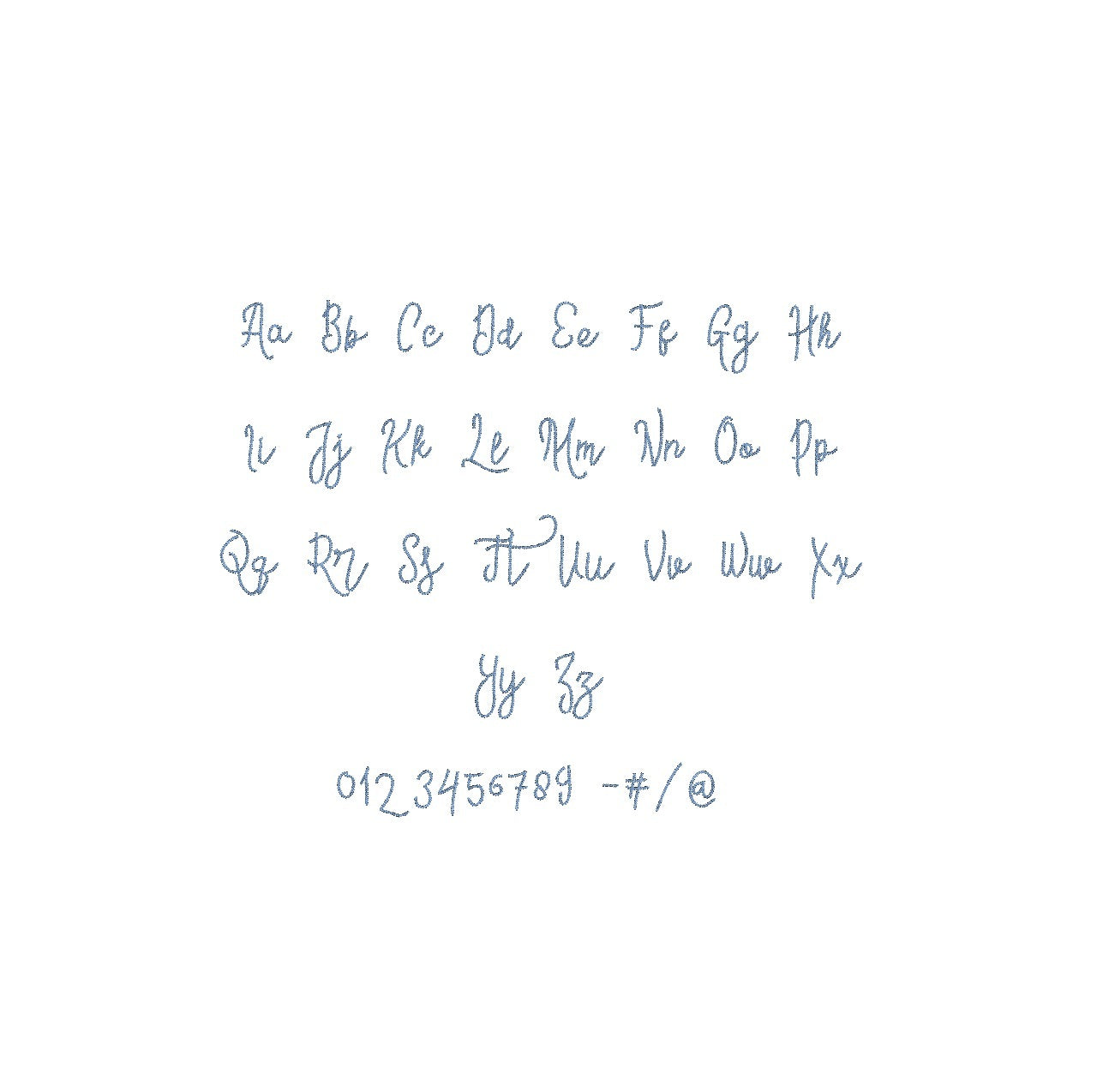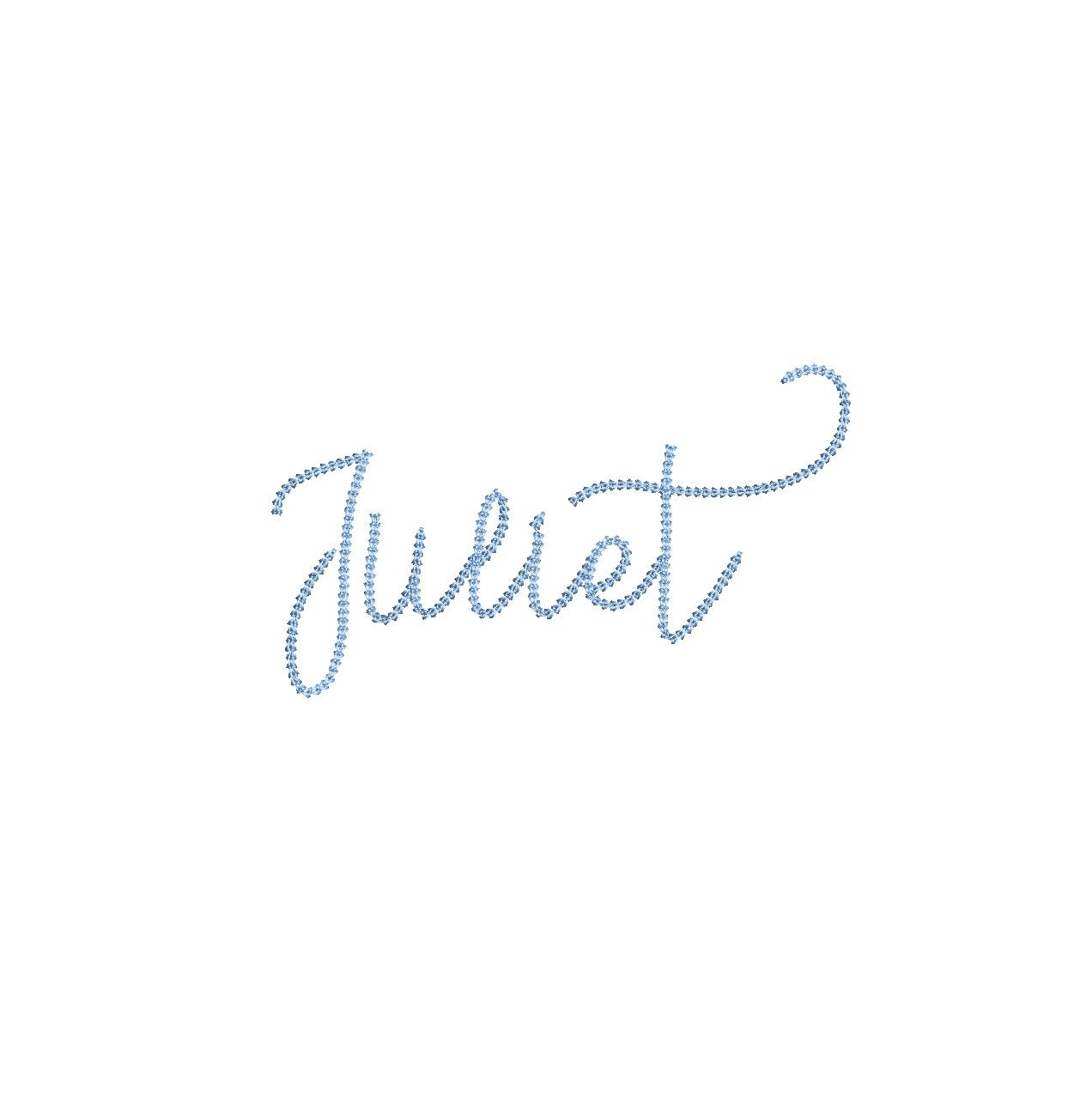
Elevate your embroidery with the Juliet Chain Stitch ESA font, compatible with Wilcom Studio e4.5.6 and Hatch 3 versions and up. This font adds a touch of timeless elegance to your designs. Meticulously crafted, the font's chain stitch artistry enhances depth and allure in every project. Seamlessly integrate for captivating results that stand out. Juliet transforms fabric into a canvas of creativity, infusing your creations with a graceful charm. Elevate your embroidery with this seamless blend of technology and artistry. Experience the magic of Juliet Chain Stitch ESA font to redefine stitching excellence. Upgrade your designs today for classic impact.